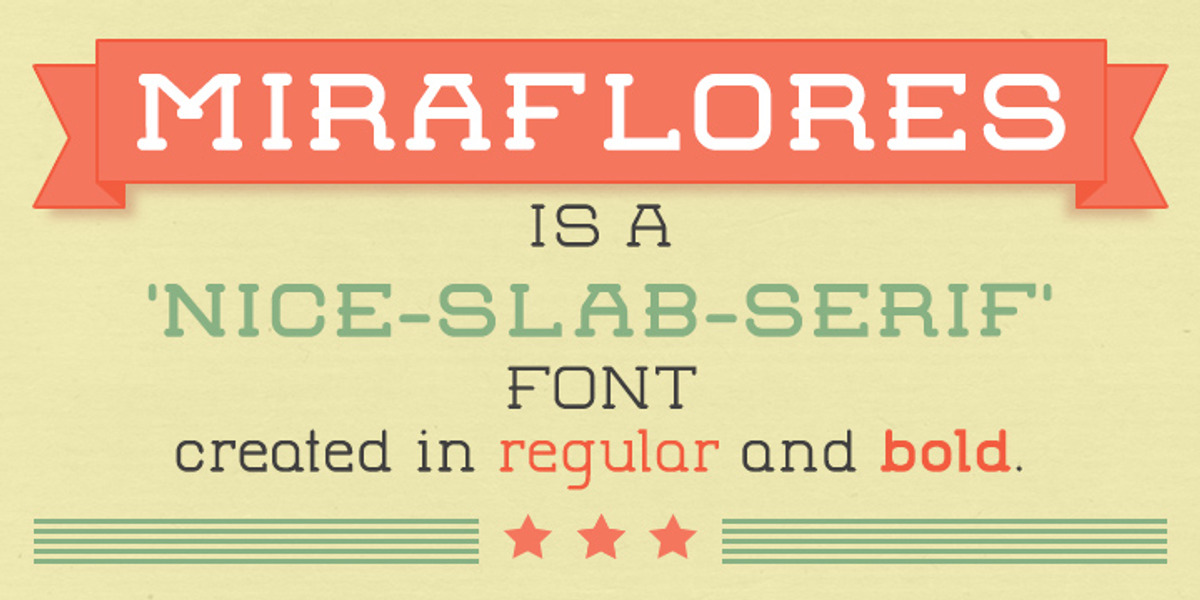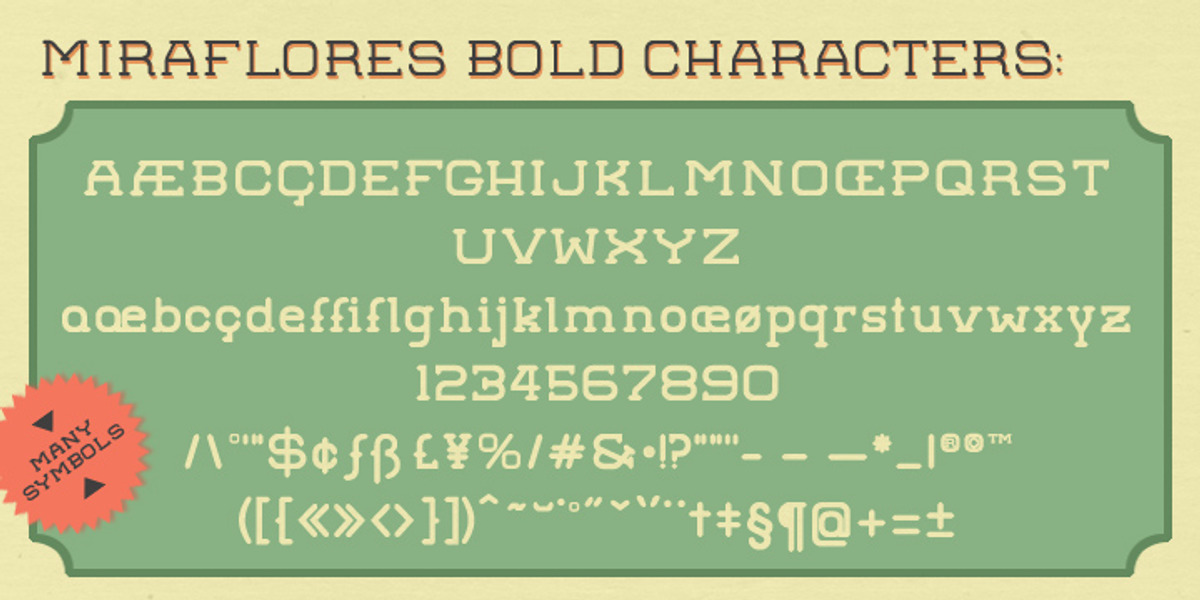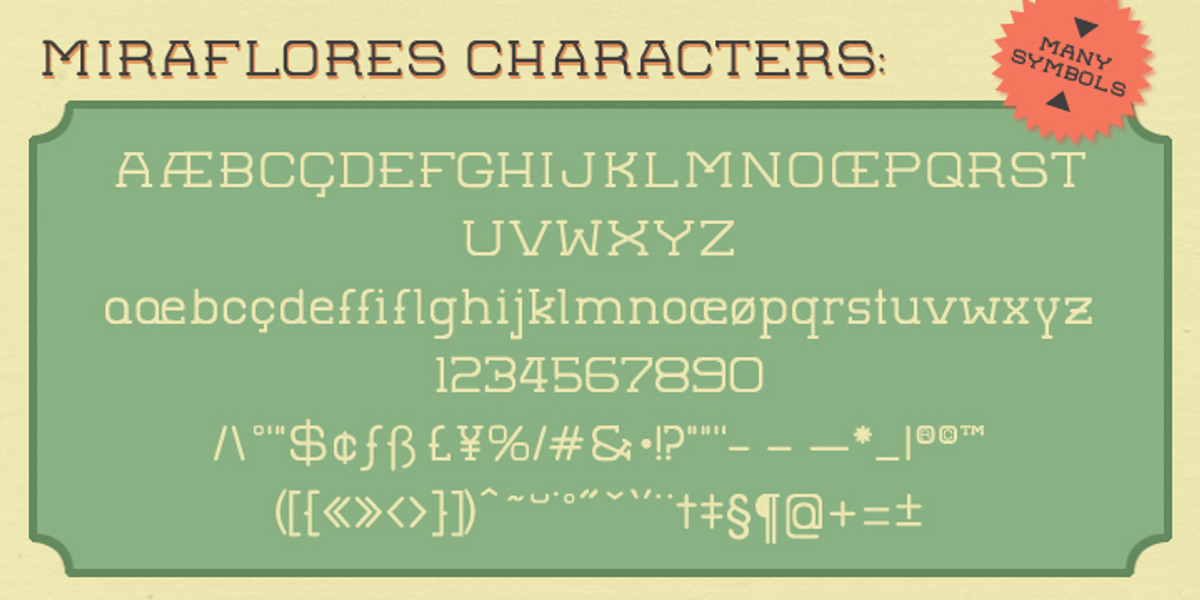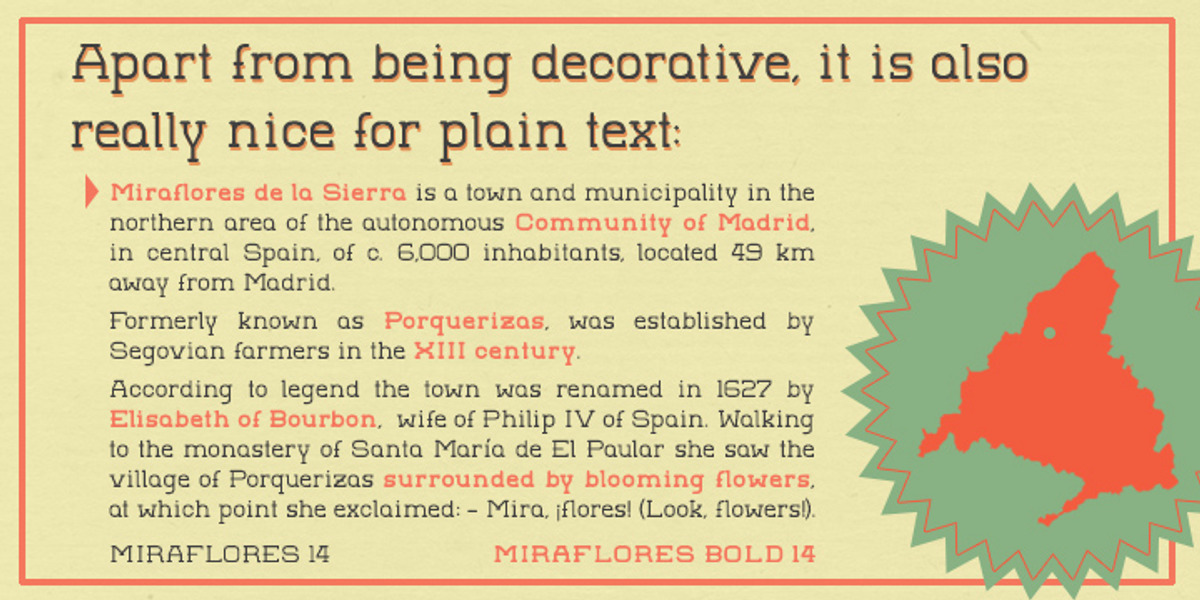
GL Miraflores
GL Miraflores is an elegant vintage slab serif font inspired by the free font 'Molesk'. It's versatile enough for both decorative purposes and plain text applications.